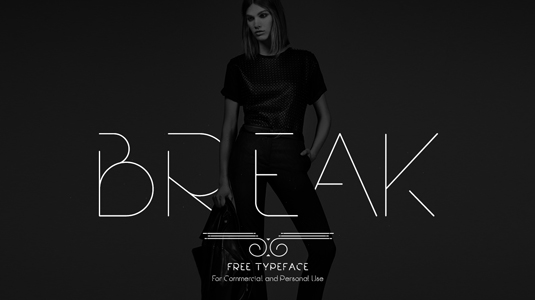
Font of the day: Break
Break by Rajesh Rajput
Kick your weekend off with a bang with this free modern typeface Break, created by designer Rajesh Rajput. Break consists of five weights, including bold and extra light, and is suitable for a wide variety of projects.